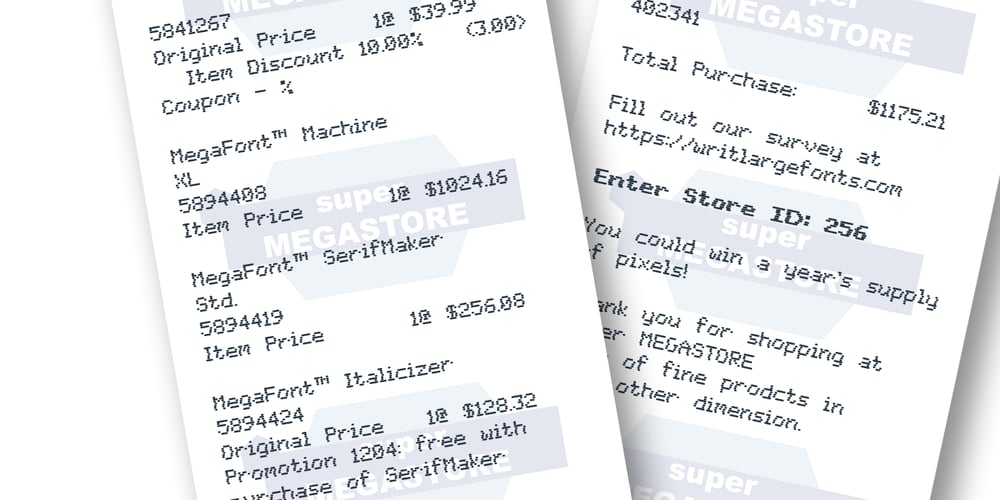
WL Dot Matrix Font Family was designed by Samuel Goldstein and published by Writ Large. WL Dot Matrix contains 12 styles and family package options. WL Dot Matrix is another typographic flashback to computing of the mid 1980s, when 9-pin dot-matrix printers were the state of the art. Compatible with the cleaner WL Rasteroids family, WL Dot Matrix explores some of the common failure modes of old printers: smudging ribbons, slipped tractor feeds, and gummed up print heads.